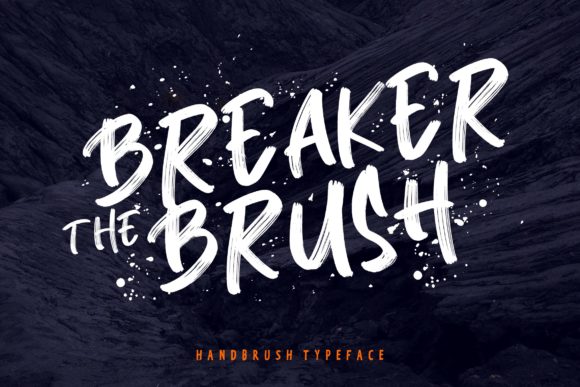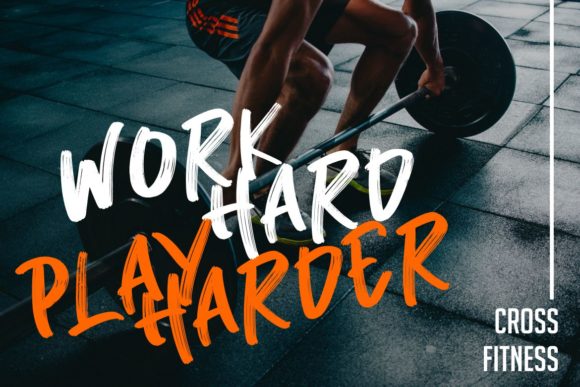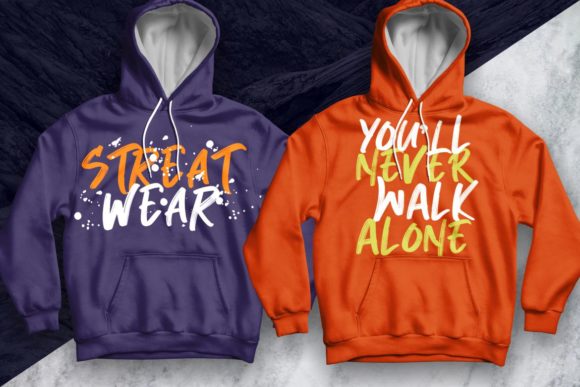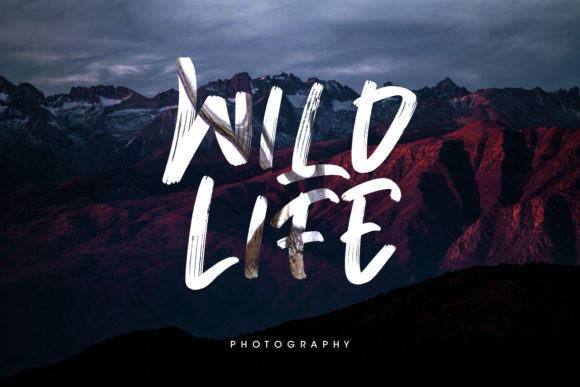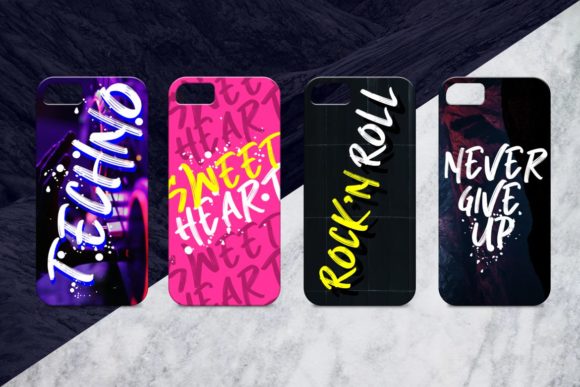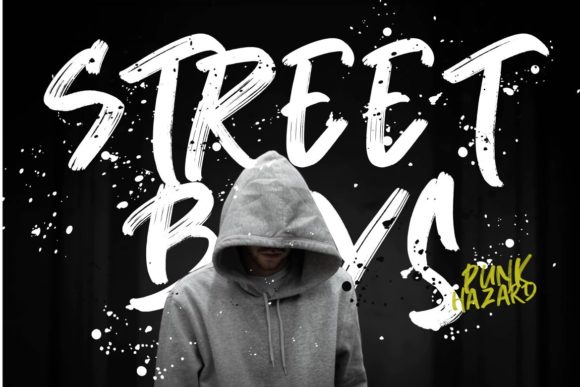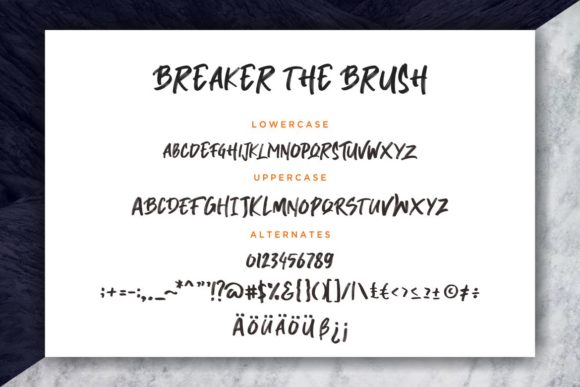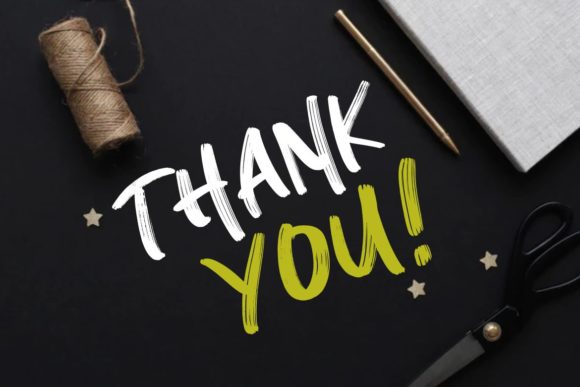
HomeScript FontsBreaker the Brush Font Script Fonts Breaker the Brush Font FacebookXPinterestWhatsApp Breaker the Brush Font Poster 2 Breaker the Brush Font Poster 3 Breaker the Brush Font Poster 4 Breaker the Brush Font Poster 5 Breaker the Brush Font Poster 6 Breaker the Brush Font Poster 7 Breaker the Brush Font Poster 8 About Breaker the Brush Font Breaker the Brush is an equally cool and strong handwritten brush font with a contemporary vibe. DOWNLOAD NOW People also explored Aman Font Reminder Font Someday Script Font Happiness Font Spider Web Font Backfarm Font Winsome Marker Font James Sophia Font Hellony Font 570 0 TagsBreaker the Brush Font Previous articleHorseman FontNext articleKastyle Font LEAVE A REPLY Cancel reply Comment: Please enter your comment! Name:* Please enter your name here Email:* You have entered an incorrect email address! Please enter your email address here Website: Save my name, email, and website in this browser for the next time I comment. Personal Use Free Hello Sarrah Personal Use Free Read more about this font Colourbars Personal Use Free Read more about this font Zeshane Personal Use Free Read more about this font Super Discount Personal Use Free Read more about this font BLOG The 10 Best Handwriting Fonts to Add Personality to Your Designs 10 of the Best Handwriting Fonts for Adding Personality to Your Designs There will undoubtedly be no other better choice than handwriting fonts to give... Modern Sans-Serif Fonts That Brands Love in 2025 Free vs Paid Fonts: Why Investing in Premium Fonts Is Worth It Transform Your Website: Elevate Your Typography with 7 Best Web Font Generators